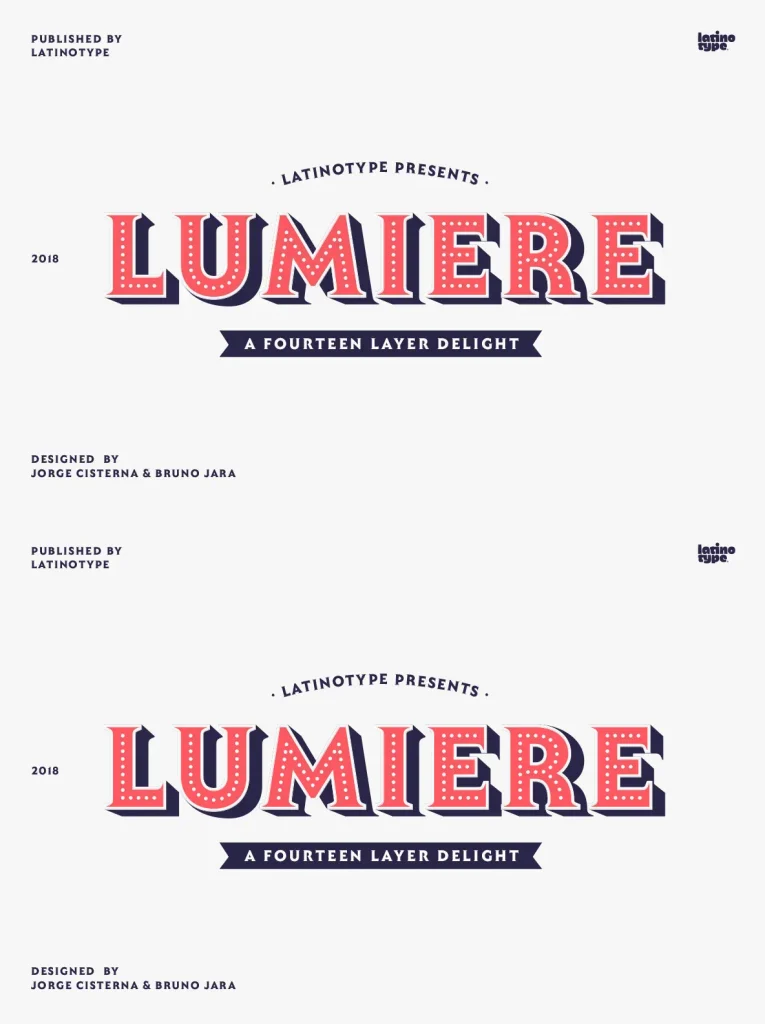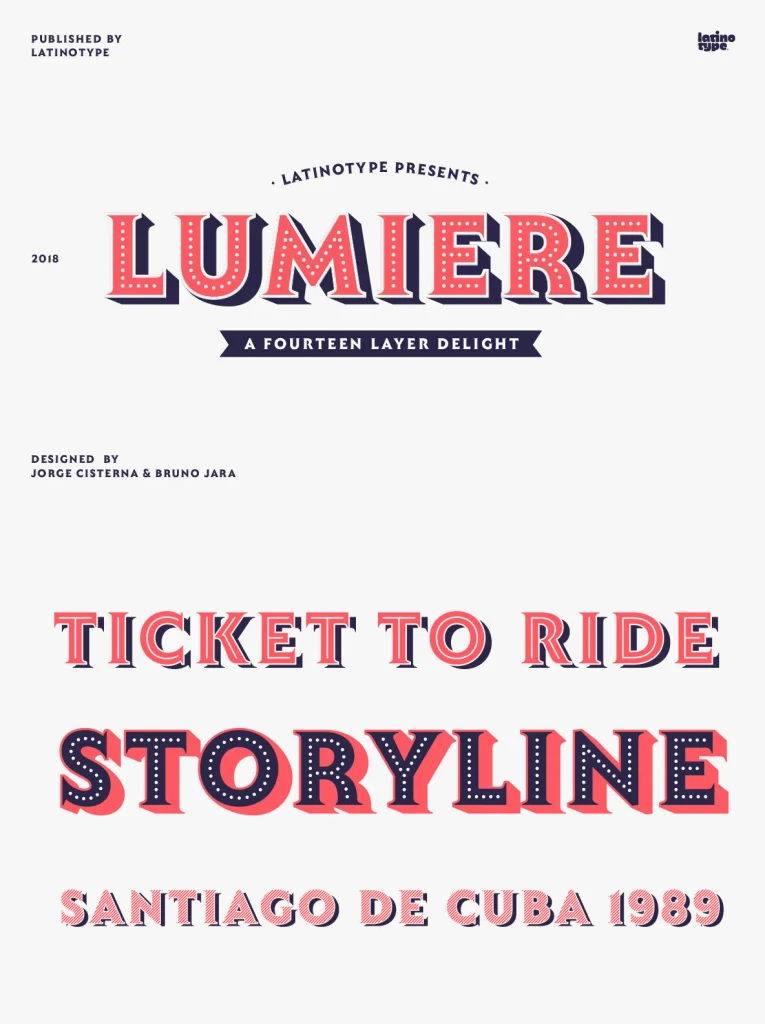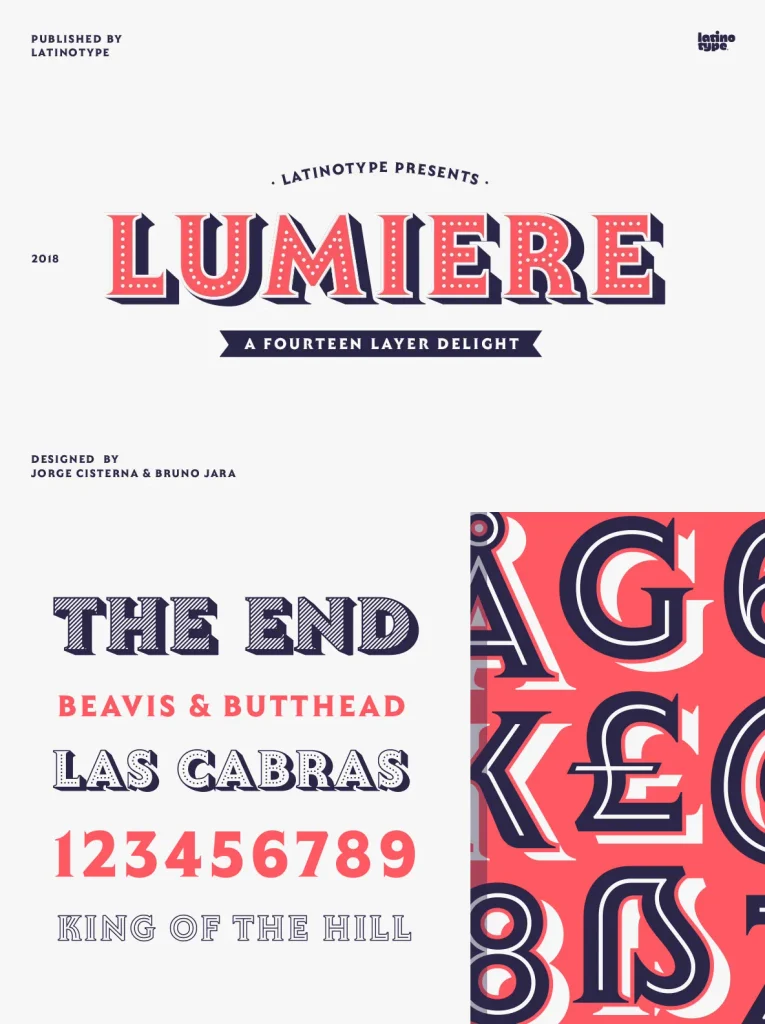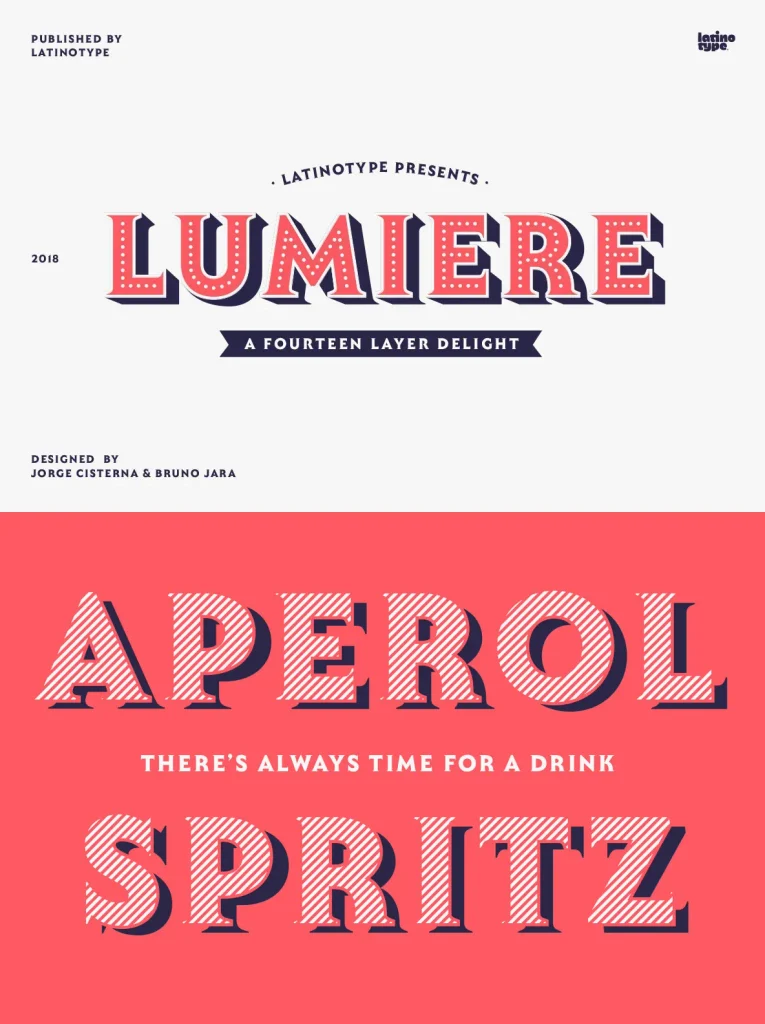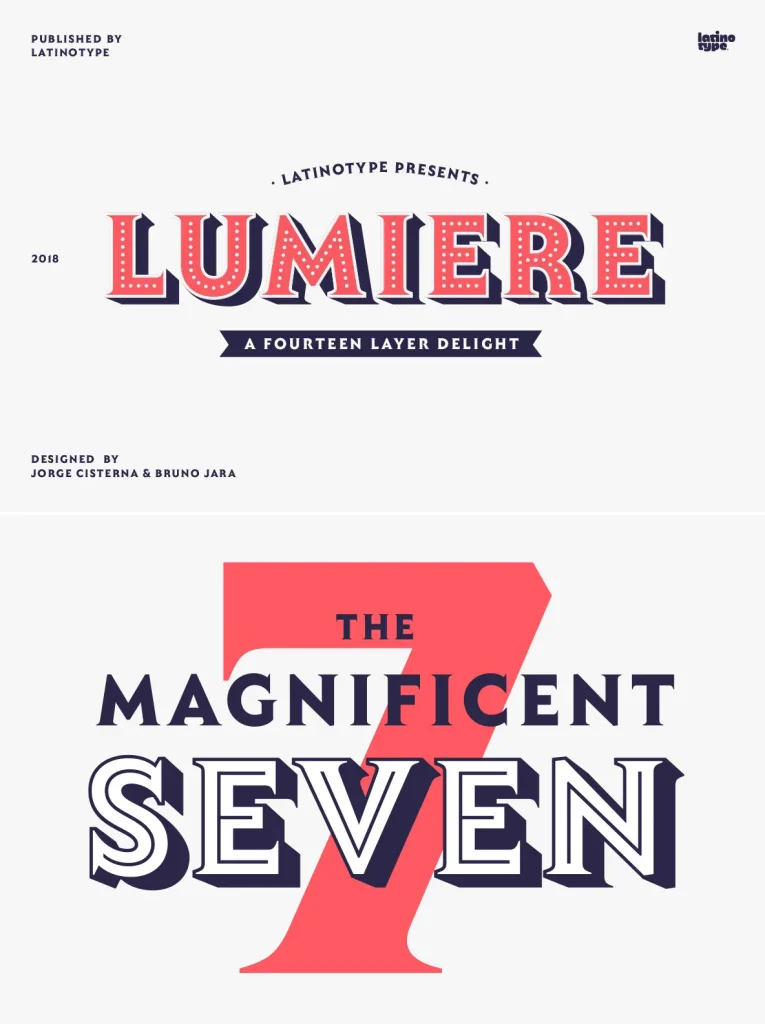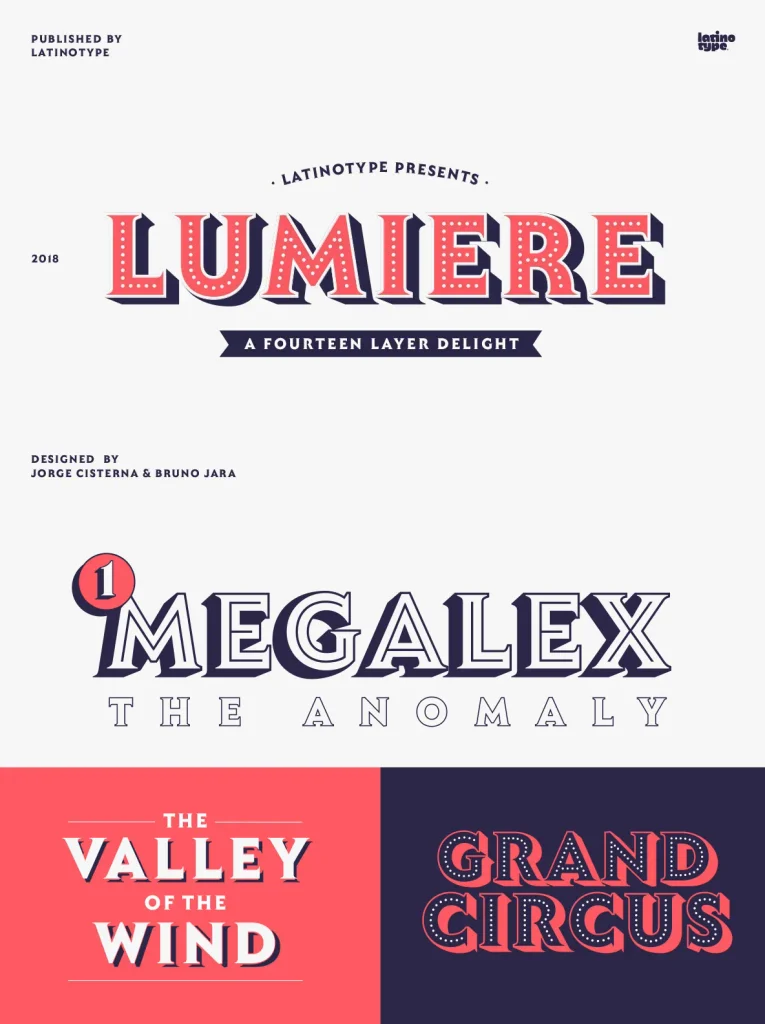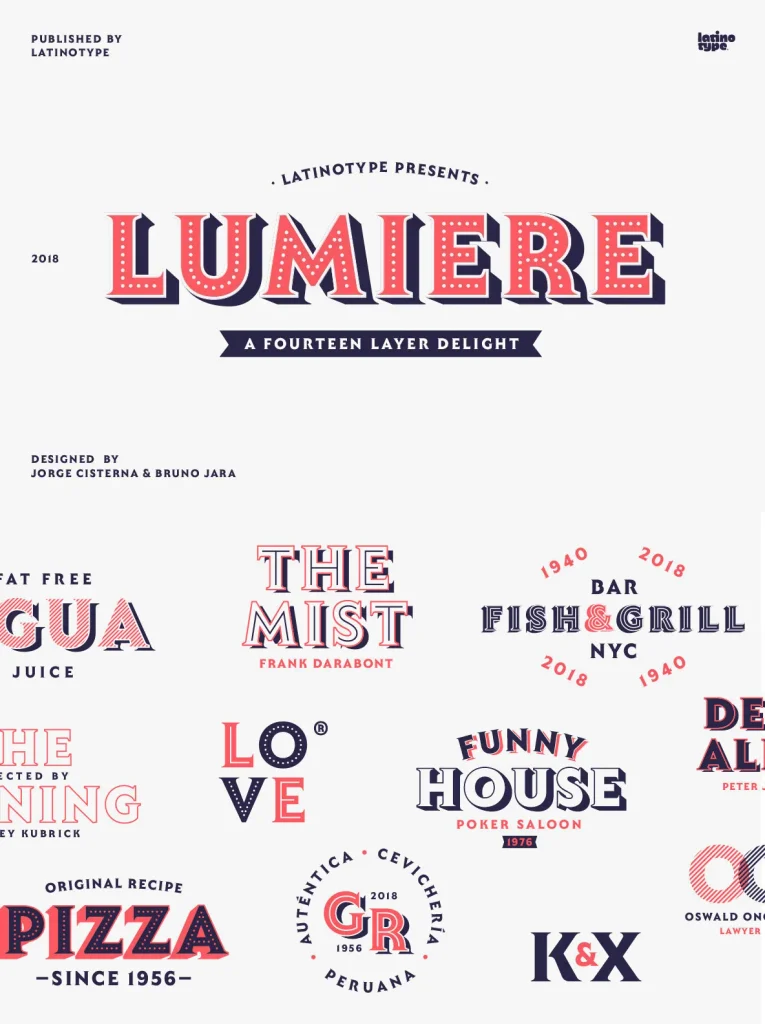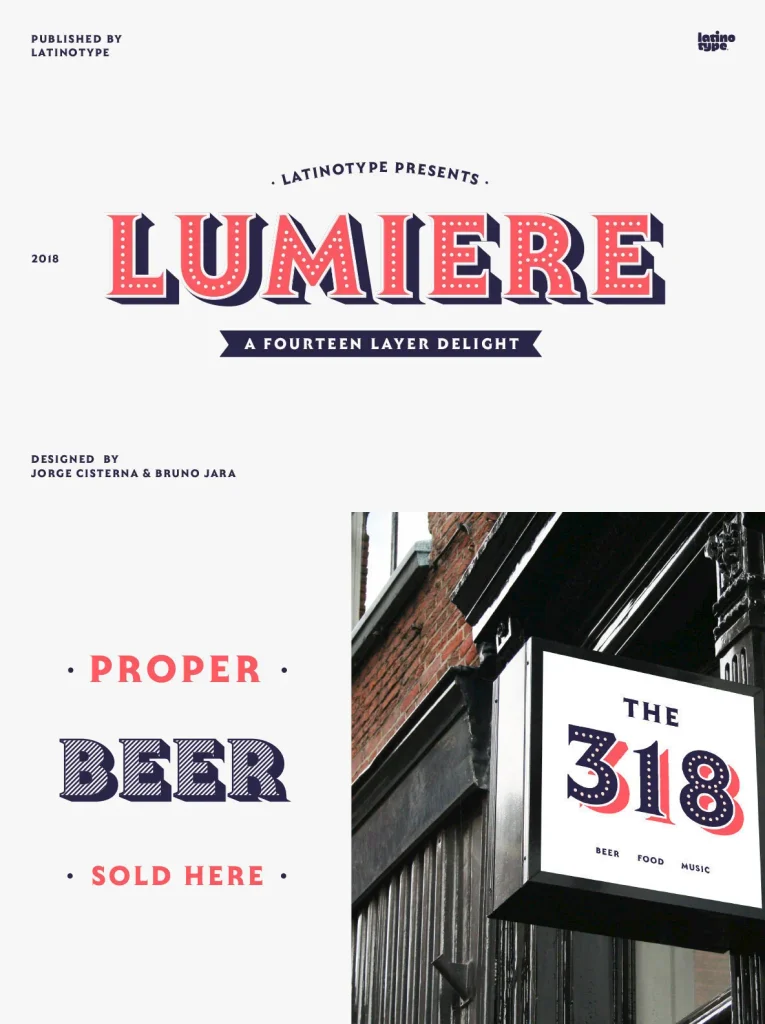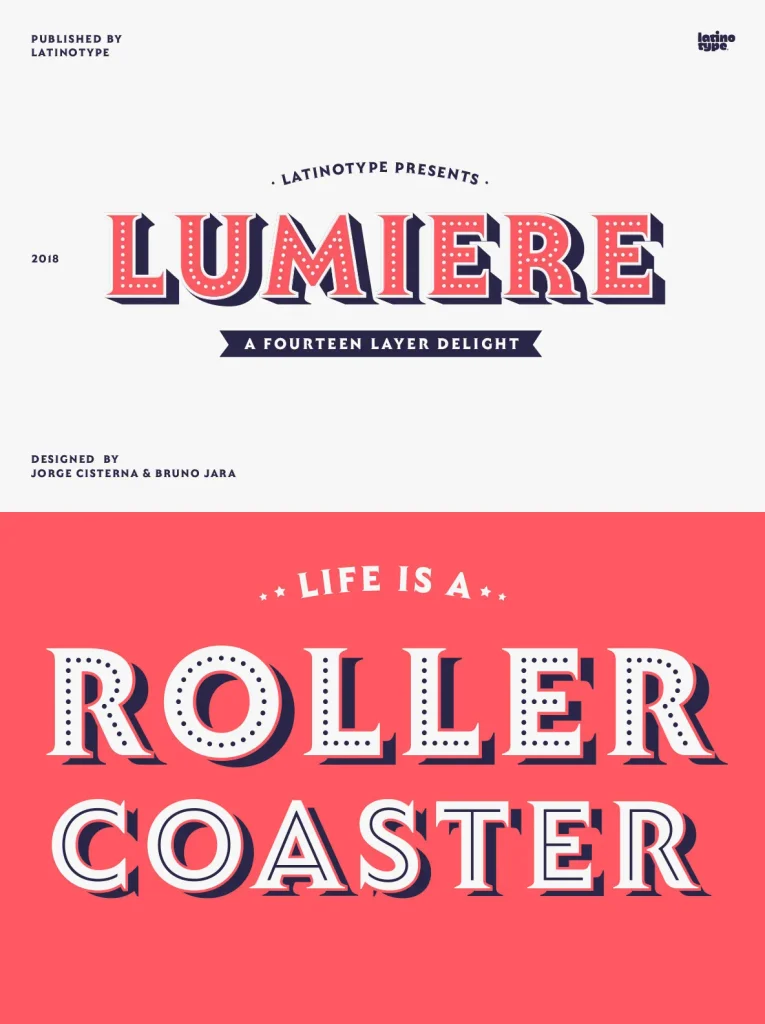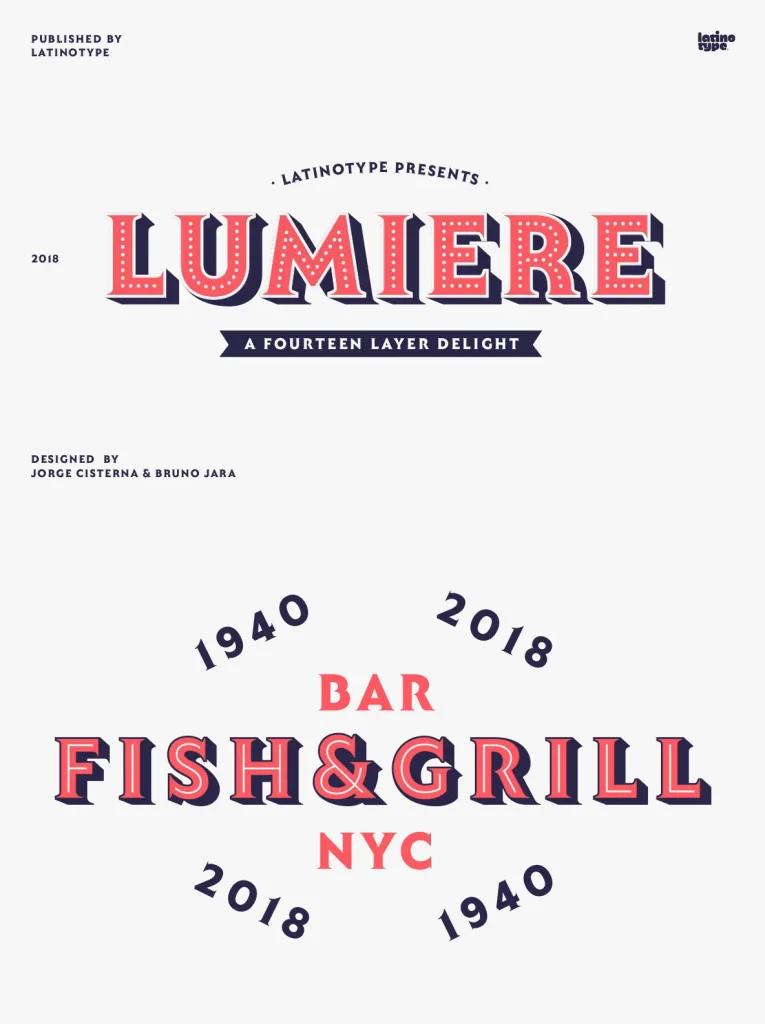
Lumiere Font
Distinctive Display Typeface Inspired by Classic Serif Gothic
Drawing on the legacy of Herb Lubalin’s Serif Gothic and similar typefaces, this unique display font offers a contemporary interpretation with strong character. Its refined shapes capture the original’s spirit while introducing updated details for versatility.
The design balances a bold personality with understated neutrality, making it well-suited for a variety of creative projects. Whether used for branding, editorial headlines, or digital interfaces, it delivers clear letterforms and memorable style without overwhelming your design.